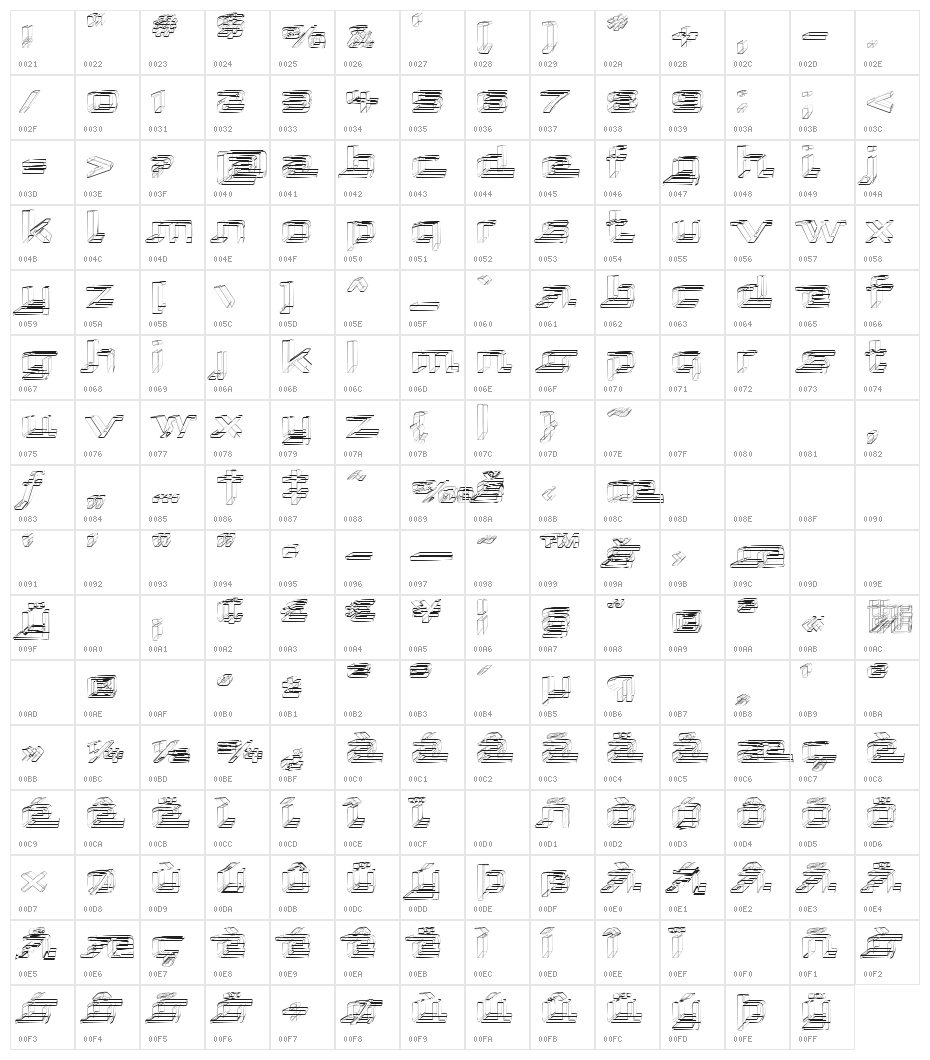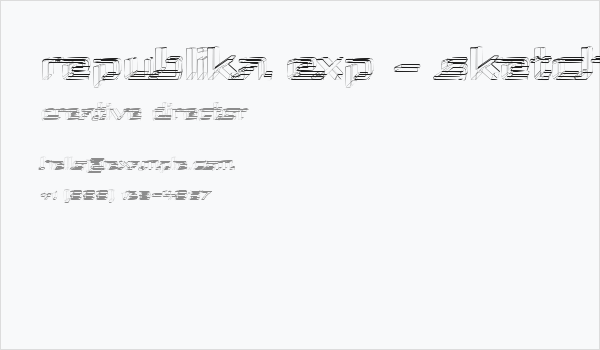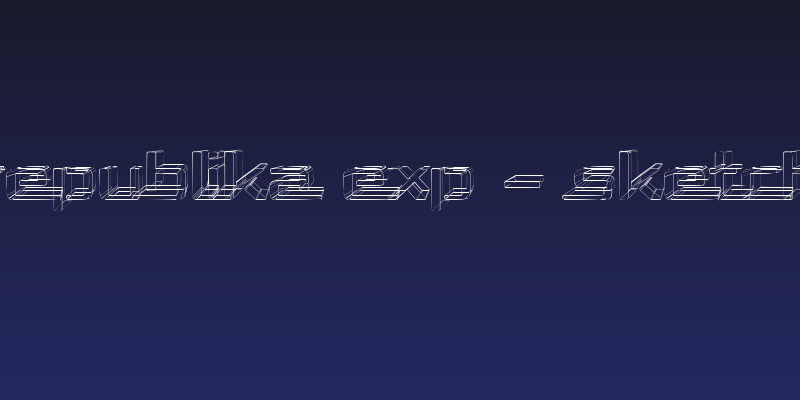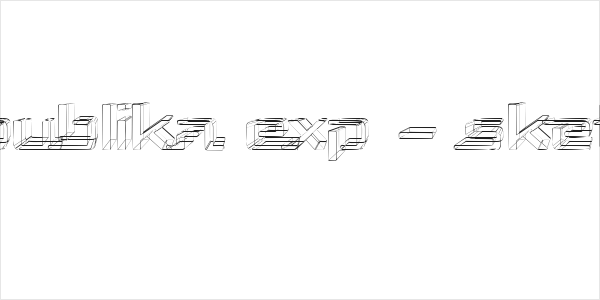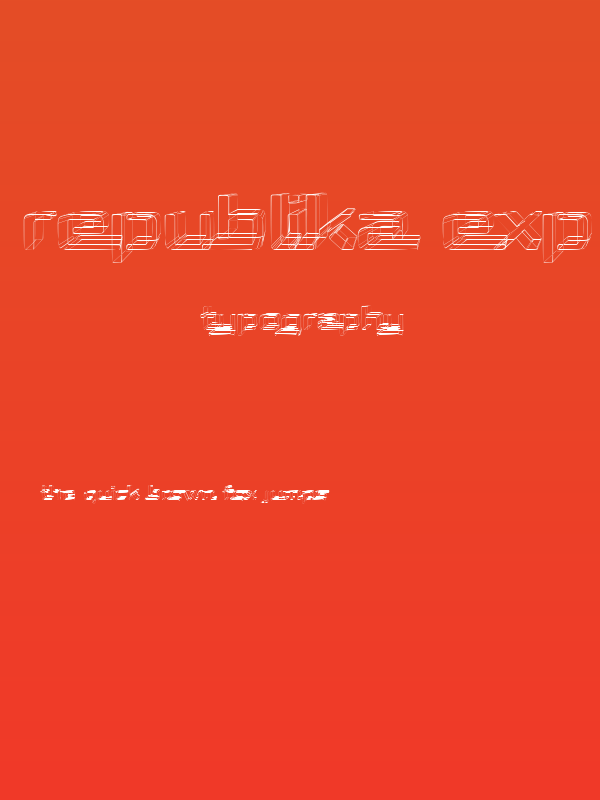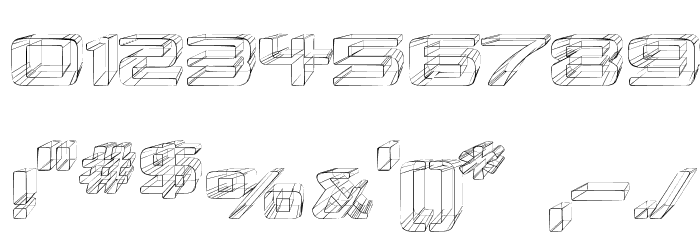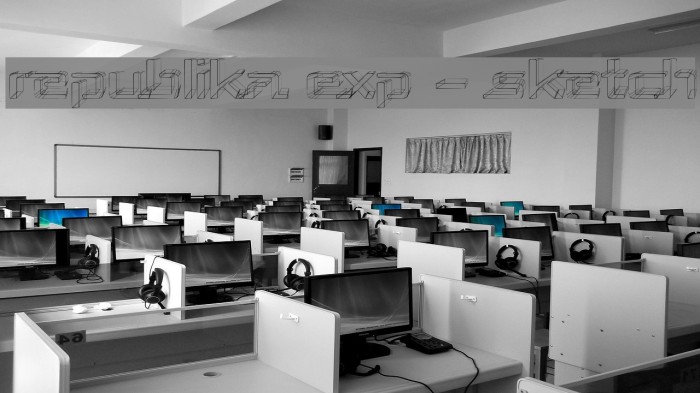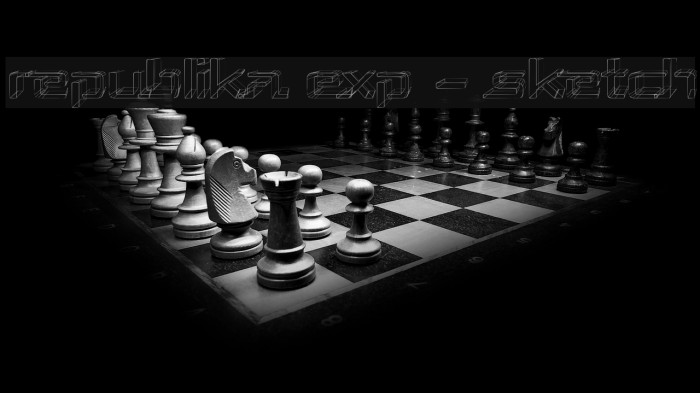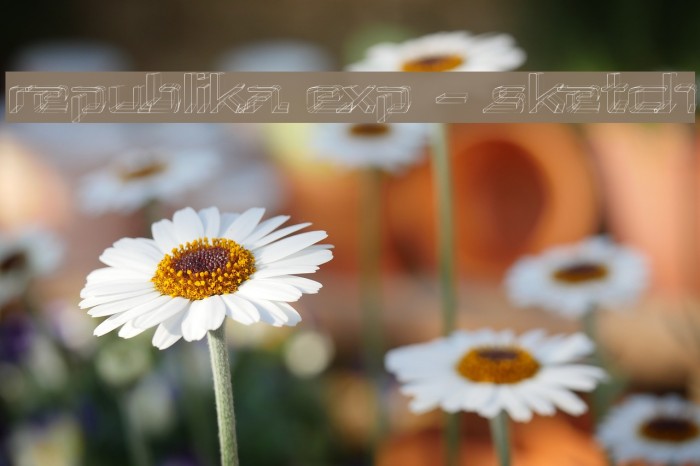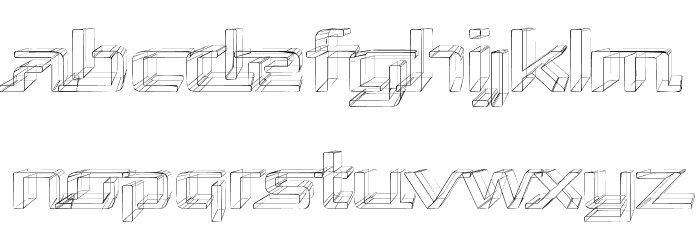
Republika Exp - Sketch Font
Republika Exp - Sketch Description
This font features a unique, sketch-like design with a three-dimensional appearance. Each character is outlined with multiple overlapping lines, creating a dynamic and artistic effect. The letters are bold and angular, with a futuristic and industrial feel. The uppercase and lowercase letters maintain a consistent style, while the numbers and special characters follow the same sketchy, geometric pattern. This font stands out with its intricate detailing and modern aesthetic, making it suitable for creative and eye-catching designs.
| Proposed Projects | Ideal for graphic design projects, posters, album covers, and branding that require a modern and artistic touch. |